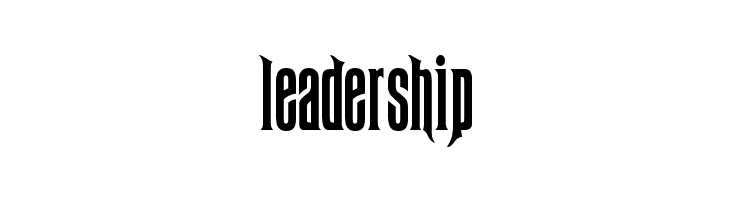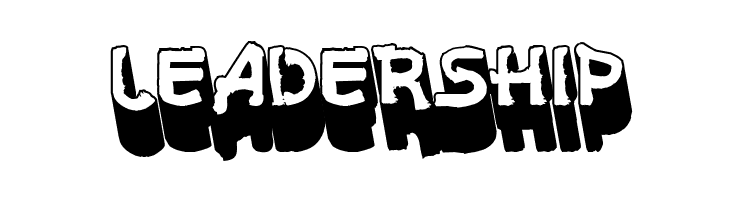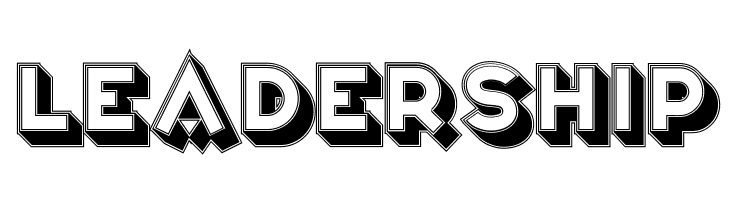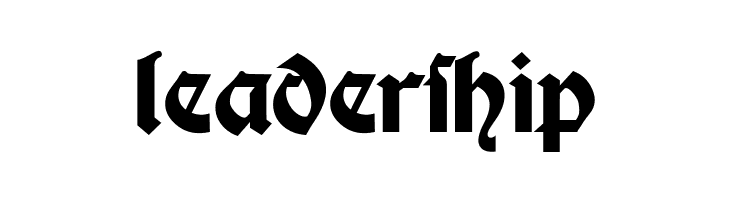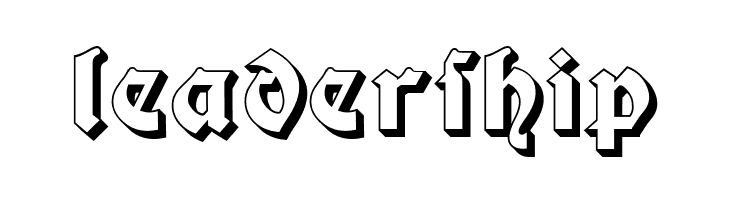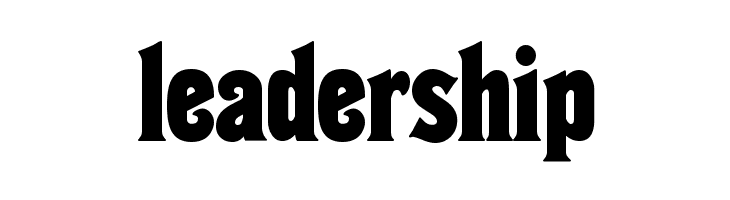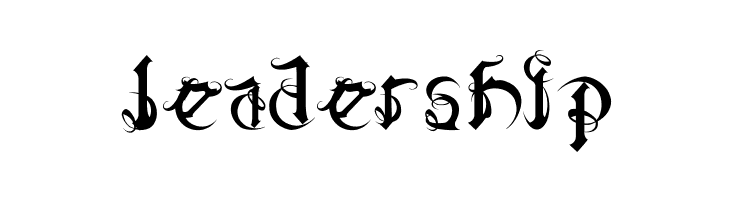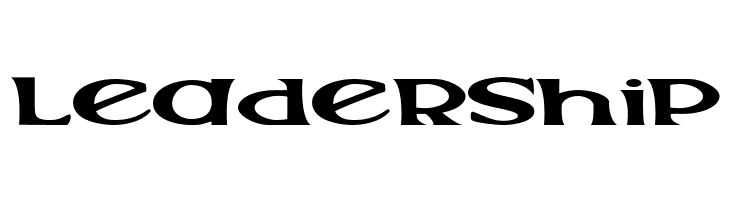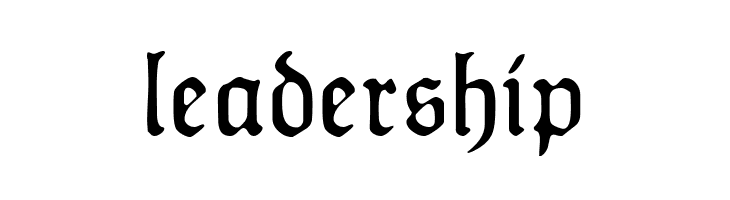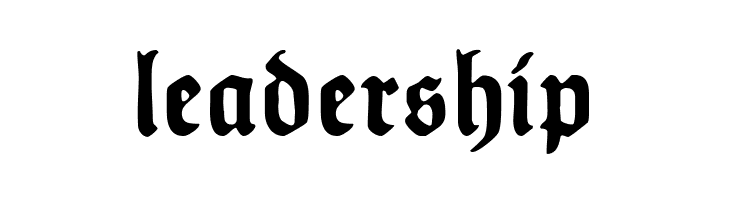
A bold, 3D shadow font with a rugged, textured edge for dramatic impact.
A bold, three-dimensional display font with a dramatic, theatrical style.
A bold Blackletter font with dramatic, angular strokes and a medieval aesthetic.
A bold, 3D Schwabacher-style font with a blackletter influence and shadow effect.
A bold, gothic-inspired font with sharp serifs and a dramatic presence.
A bold, dramatic serif font with sharp angles and distinctive curves.
A dramatic Blackletter font with ornate, angular designs and historical elegance.
A bold, intricate blackletter font with sharp angles and dramatic strokes.
A dramatic and ornate Blackletter font with intricate flourishes.
A dynamic, angular font with a forward-leaning slant and dramatic flair.
A bold, Gothic-inspired decorative font with unique encased letters.
A bold, blackletter font with sharp, angular strokes and a Gothic aesthetic.
A decorative Gothic font with ornate, high-contrast characters encased in circles.
A modern serif font with sharp serifs and high contrast, ideal for dramatic designs.
A decorative font with thorn-like embellishments, offering a gothic and organic appearance.
A bold, high-contrast serif font with a modern and dramatic style.
A bold, dramatic font with sharp, angular edges and a gothic flair.
A bold, shadowed blackletter-style font with a dramatic, three-dimensional effect.
A bold, blackletter-inspired font with a contour effect, offering a dramatic and historical aesthetic.
A bold, high-contrast font with sharp serifs and decorative flourishes.
An ornate, high-contrast font with decorative flourishes and a regal style.
A bold, blackletter-style font with sharp angles and dramatic curves.
A bold blackletter font with sharp, angular lines and a gothic aesthetic.
A bold, Gothic-inspired font with sharp serifs and dramatic flair.
A bold, shadowed Gothic-style font with sharp, angular lines.
A bold blackletter font with ornate Gothic styling and high contrast.
A bold, decorative font with Gothic influences and intricate detailing.
A bold, dramatic blackletter font with intricate, ornate letterforms.